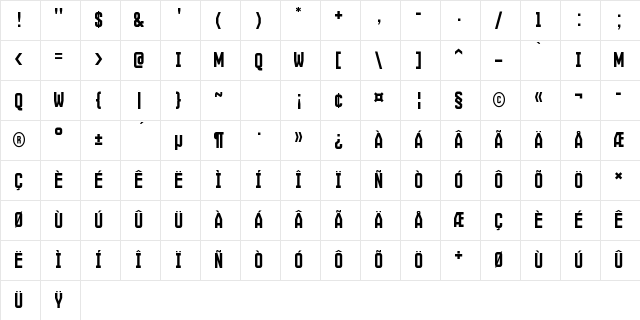
Martius Regular
Foundry: GGBotNet
Designer: GGBotNet
Design Context for Martius
Martius is a composed and adaptable typeface that performs quietly and consistently across a wide range of design contexts.
Pro Tip: Use Martius in both headline and body roles to test its range before committing to a single application.